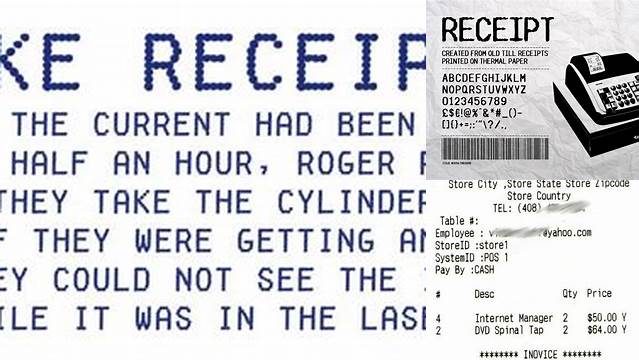
Free POS Receipt Font: Download And Customize Guide
Hey there, fellow business owners and tech enthusiasts! Ever wondered how to make your point-of-sale (POS) receipts look snazzy and professional? Well, a crucial part of that is choosing the right font. Let's dive into the world of free POS receipt fonts! You'll learn where to find them, how to download them, and how to customize them to match your brand. Get ready to transform those boring receipts into something that reflects your awesome business!
Choosing the correct font for your POS receipt is more important than you might think. It's not just about aesthetics; it's also about legibility and professionalism. A well-chosen font ensures that your customers can easily read the details on their receipts, from the items purchased to the total amount due. It reflects well on your business and helps create a positive customer experience. This guide will show you everything, guys, from how to download POS receipt fonts to how to customize them for your specific needs. Ready to get started?
Why the Right Font Matters for Your POS Receipts
Alright, let's talk about why a simple font choice can make a huge difference. First off, legibility is key. You want your customers to read their receipts quickly and clearly. Tiny or overly stylized fonts can be a nightmare for tired eyes, leading to frustration and potential misunderstandings. Imagine a customer squinting at their receipt, trying to decipher the price of an item – not a good look! Then there's the professionalism factor. The font on your receipt is part of your brand identity, even if it's a small part. Using a clean, modern font shows that you care about the details and take your business seriously.
Consider the message you want to send. A crisp, easy-to-read font conveys trust and efficiency. On the other hand, a cluttered or outdated font might make your business seem less polished. It all adds up, guys. It's about the overall customer experience. A well-designed receipt, with a readable font, shows that you value your customers' time and attention. It's a small detail, sure, but those small details can make a big difference in how your business is perceived. Plus, a well-chosen font can even subtly reinforce your brand identity. It contributes to the overall look and feel, making your receipts instantly recognizable. In short, choosing the right font is a smart move that benefits both your customers and your business. Think of it as a mini-branding opportunity.
Best Free POS Receipt Fonts: Our Top Picks
Alright, let's cut to the chase and look at some of the best free POS receipt fonts that will make your receipts look fantastic. Here are some top recommendations, keeping in mind readability, style, and overall usability.
1. Courier New: A classic for a reason! Courier New is a monospaced font, meaning each character takes up the same amount of horizontal space. This makes it incredibly easy to read, especially when dealing with columns of numbers and text. It's a timeless choice that exudes a sense of professionalism.
2. Open Sans: This is a versatile, sans-serif font that's clean, modern, and highly readable. It's perfect for a wide range of applications, including receipts. Open Sans is known for its neutral appearance, making it a safe and reliable choice for any business.
3. Roboto: Another popular sans-serif font that's designed for readability. Roboto is a modern font that's easy on the eyes, making it ideal for receipts with a lot of information. It's a great option if you want something that looks professional but still has a bit of personality.
4. Arial: A widely used sans-serif font. It's clear, easy to read, and readily available on most systems. Arial is a workhorse font, and while it might not be the flashiest choice, it gets the job done and is universally understood.
5. Source Code Pro: If you want a monospaced font with a bit more flair than Courier New, Source Code Pro is a great option. It's designed for coding, so it's naturally well-suited for displaying numbers and text in a clear, organized manner. These picks provide a starting point, guys. Experiment and see which font best represents your brand and offers the best user experience.